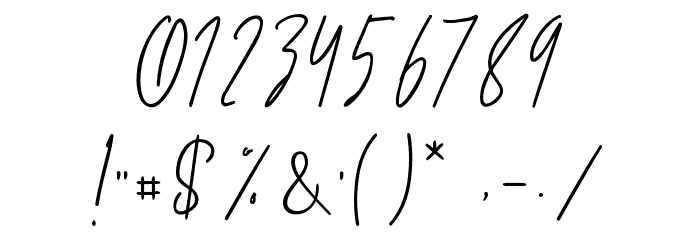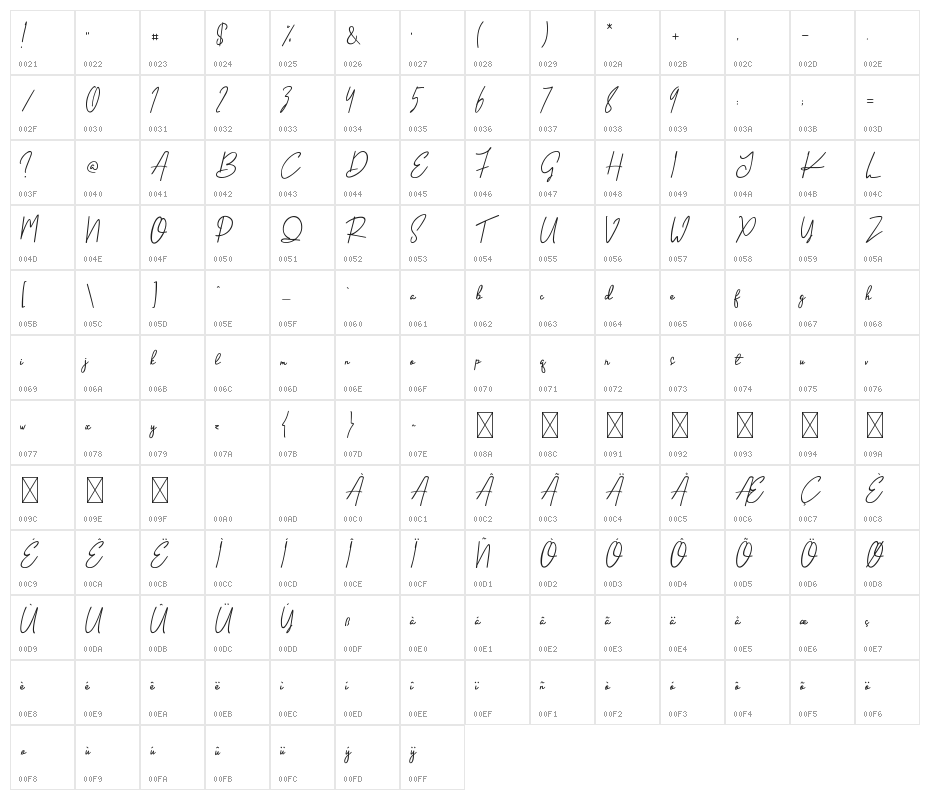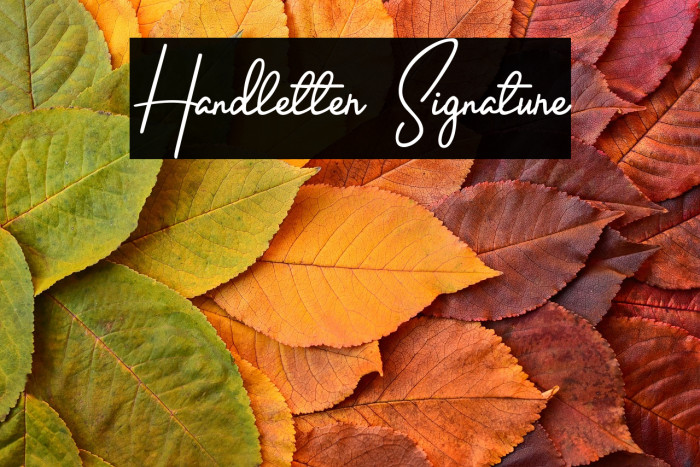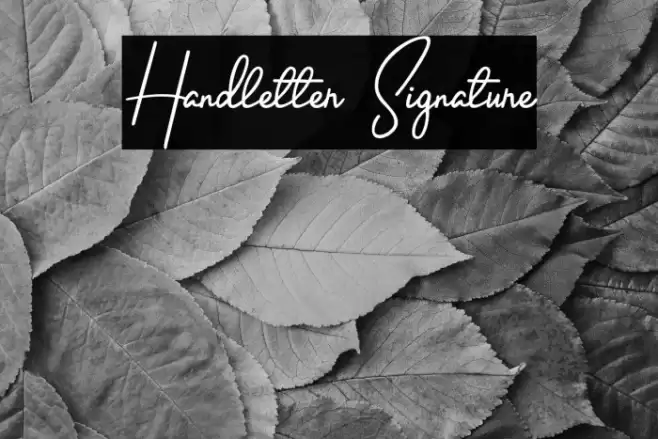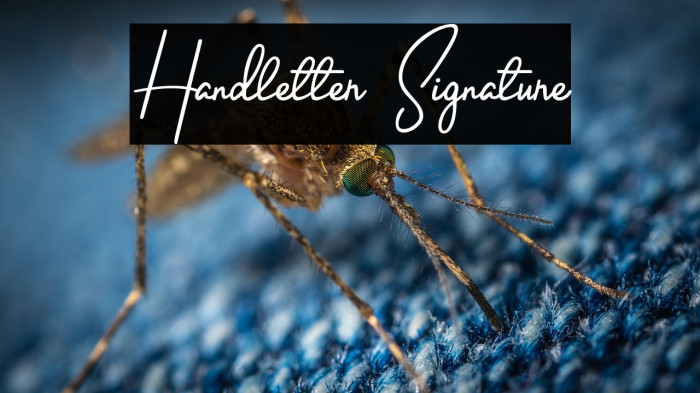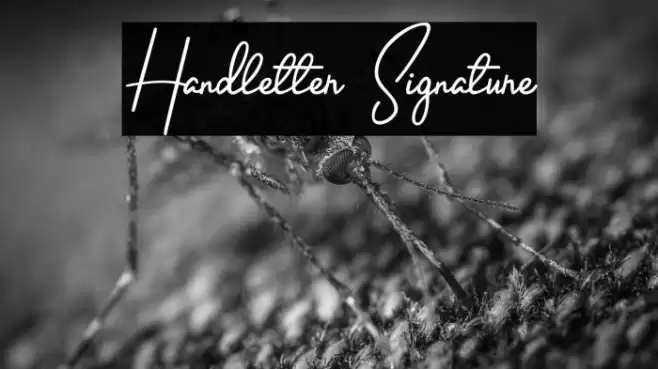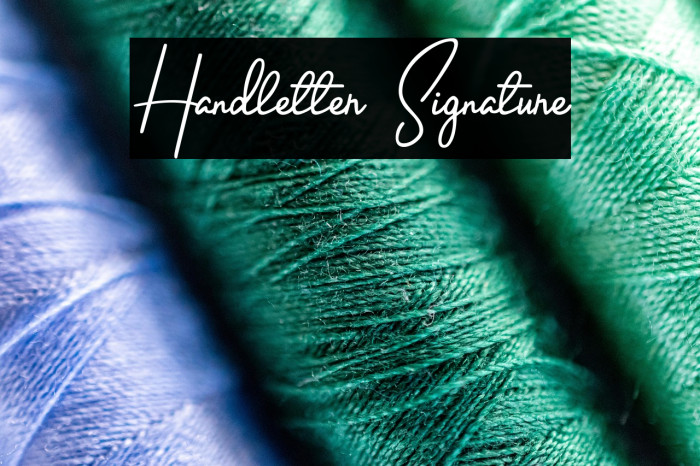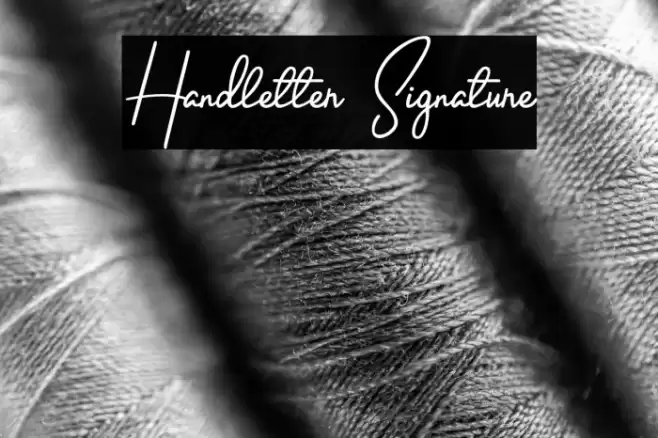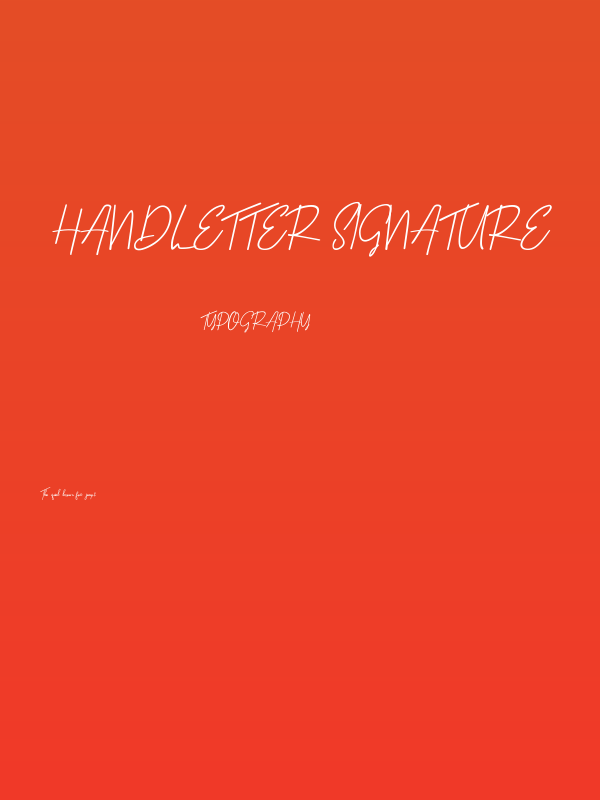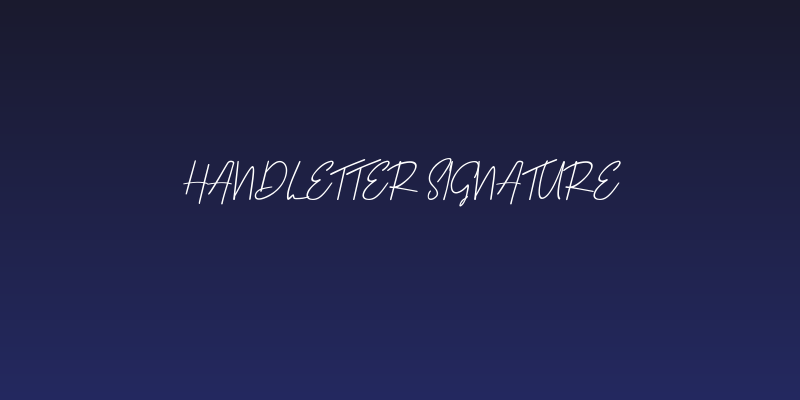
Handletter Signature Font
Handletter Signature Description
This font features a flowing, cursive style that mimics the elegance of a handwritten signature. The uppercase letters are tall and slightly slanted, with smooth curves and elongated strokes that give a sense of fluidity and grace. The lowercase letters maintain a consistent style, with rounded forms and connected strokes that enhance the script-like appearance. Numbers and special characters are designed to complement the overall aesthetic, maintaining the same fluid and elegant lines. This font exudes sophistication and is ideal for projects that require a personal touch.
| Proposed Projects | Ideal for wedding invitations, personal branding, logo design, and greeting cards. |